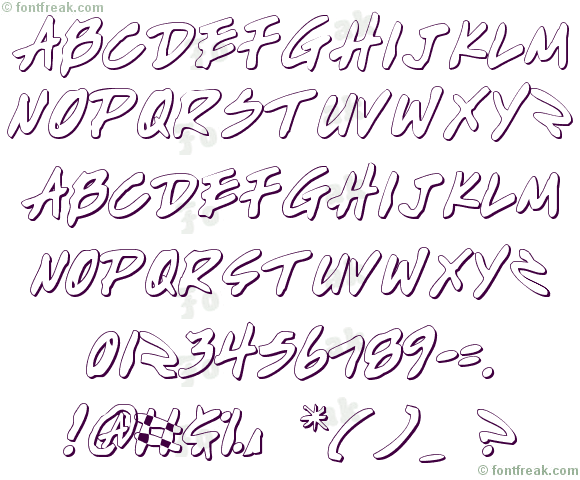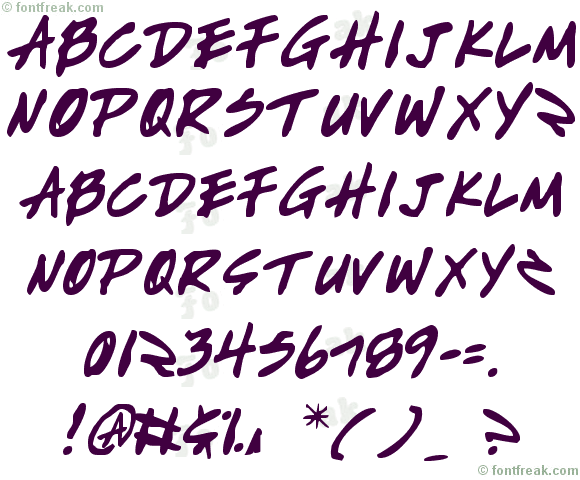
About Write Off
The Write Off font by Iconian Fonts is a captivating display font that embodies a handwritten style, making it perfect for a variety of creative projects. Released in 2001 and designed by Eric Perlin, this font features an informal, playful character that adds a personal touch to any design. The strokes are fluid and dynamic, showcasing varying weights that create a lively and engaging visual rhythm. The spacing is well-balanced, allowing for clear readability while maintaining a casual flair.
This font particularly excels in applications such as wedding invitations, where its unique handwritten aesthetic can evoke a warm, intimate atmosphere. It is also an excellent choice for movie posters, lending an artistic edge that can capture the attention of potential viewers. Additionally, the Write Off font works well for restaurant menus, helping to convey a friendly and inviting ambiance. Small business owners can utilize this font in branding materials, ensuring their marketing efforts stand out in a crowded marketplace. Content creators will also find this font appealing for social media graphics, as it resonates well with audiences seeking authenticity and personality.
What sets the Write Off font apart is its ability to combine artistic flair with functionality. Its handwritten style evokes a sense of connection and creativity, making it an essential addition to any designer's toolkit. For those interested, the Write Off font free download is readily available, inviting users to explore its potential in their next project.